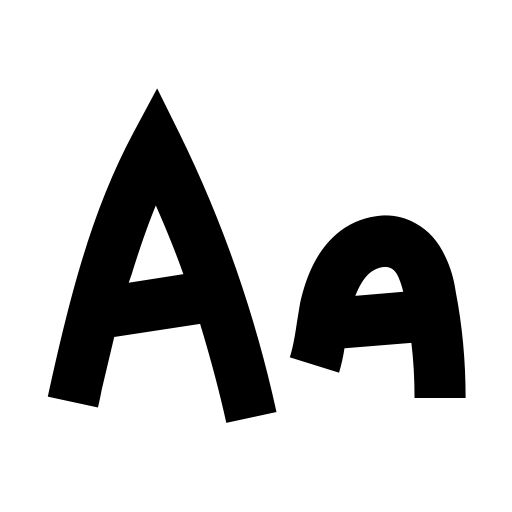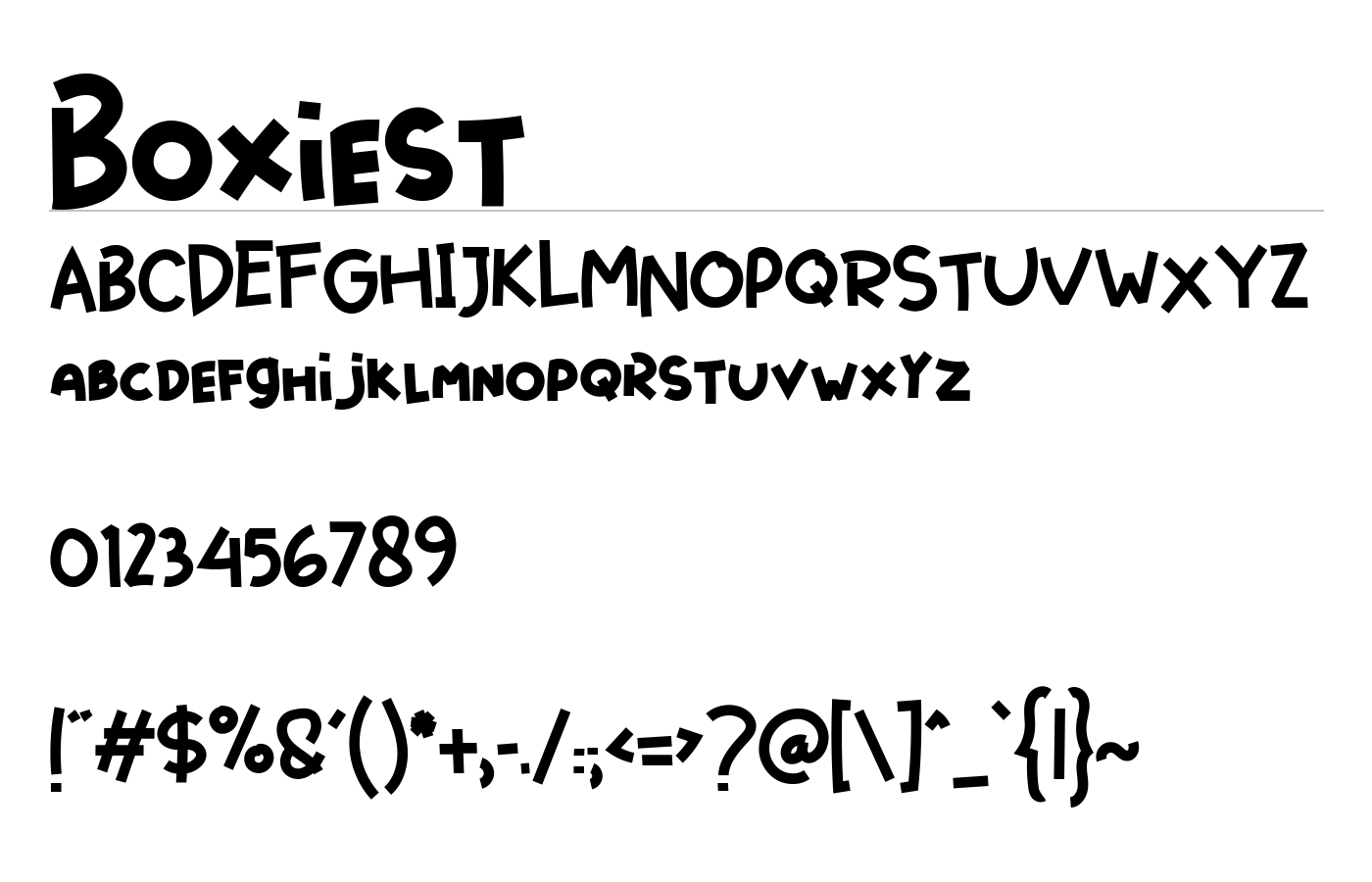
Boxiest Font is a playful, bold sans serif typeface with a hand-drawn, slightly irregular style that feels fun and energetic. Its chunky, boxy letterforms and uneven edges create an informal, approachable vibe, making it ideal for children's materials, casual branding, posters, and any design that benefits from a lively, quirky personality. This font stands out best in headlines and display uses where a friendly, eye-catching look is desired.
| Font family | Boxiest Font |
| Designer | Ibra Fonts |